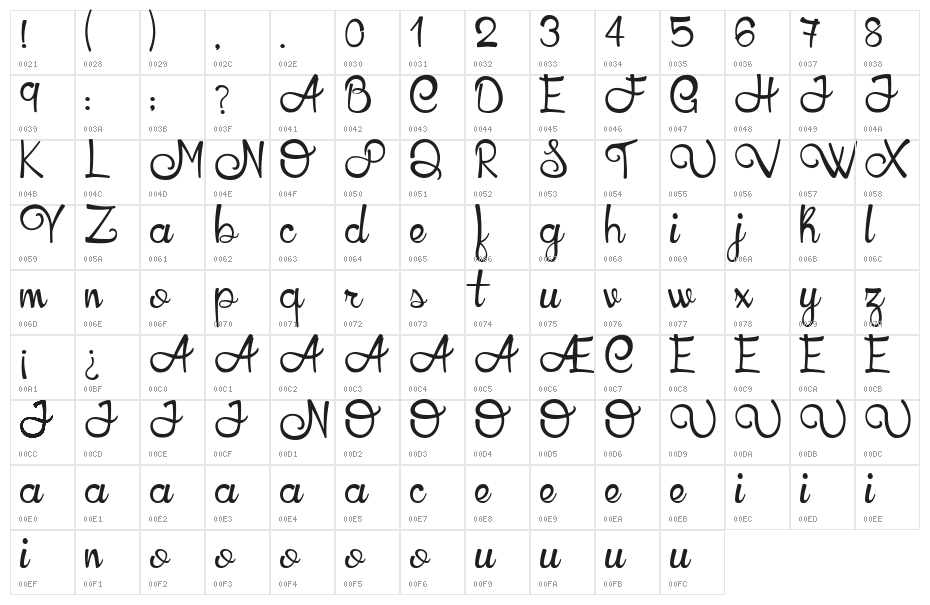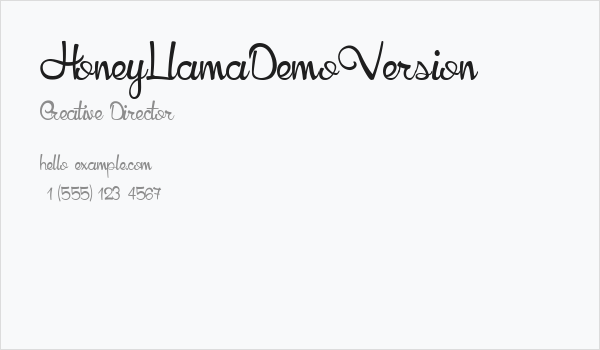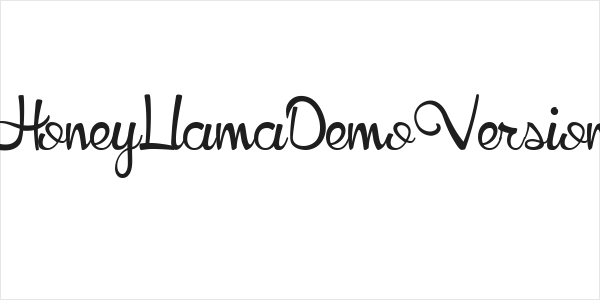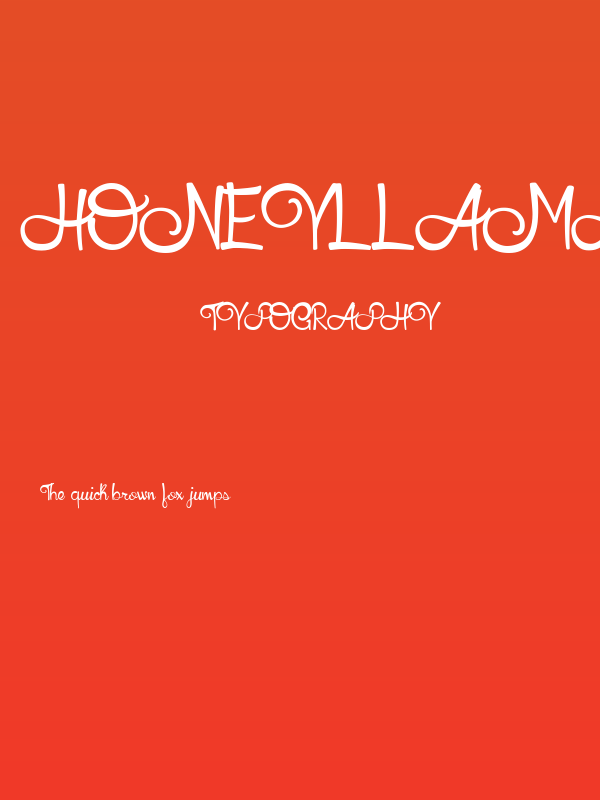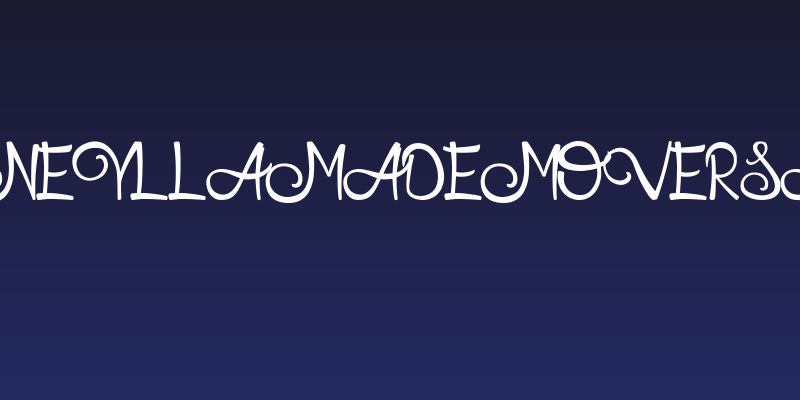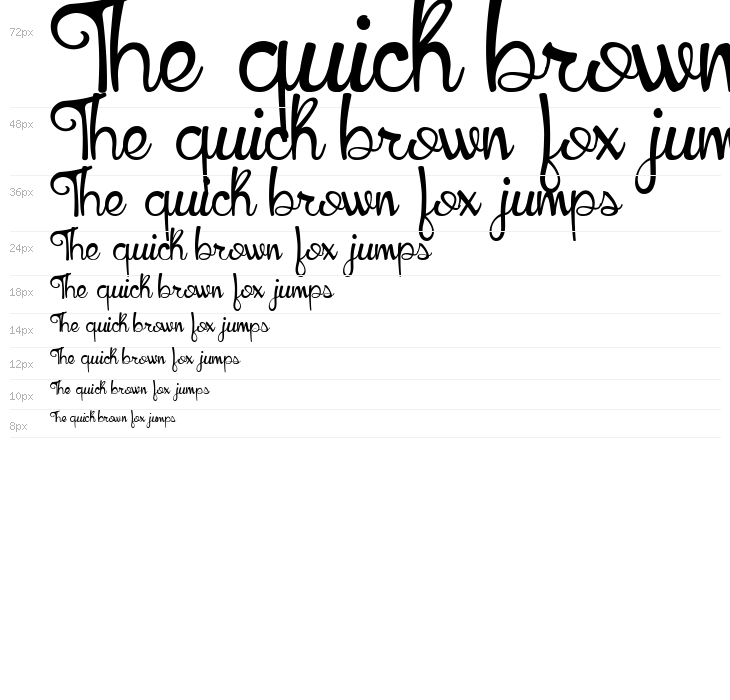
HoneyLlamaDemoVersion Font
HoneyLlamaDemoVersion Description
This font features a playful and whimsical style with a handwritten appearance. The uppercase letters are characterized by their unique loops and swirls, adding a touch of elegance and creativity. The lowercase letters maintain a consistent flow, with some letters extending slightly below the baseline, enhancing the font's dynamic feel. The numerals are bold and clear, ensuring readability while maintaining the font's artistic flair. Special characters are designed with the same playful curves, making them blend seamlessly with the rest of the font.
| Proposed Projects | Ideal for greeting cards, invitations, playful branding, children's books, and creative posters. |